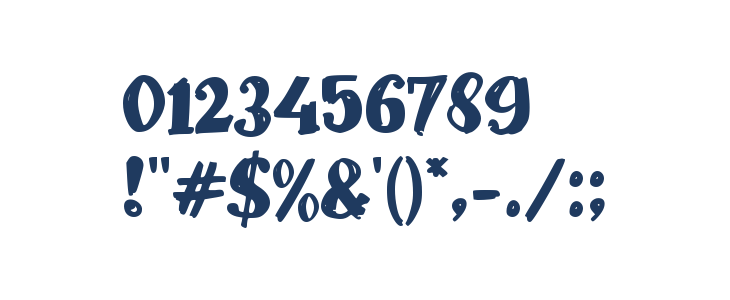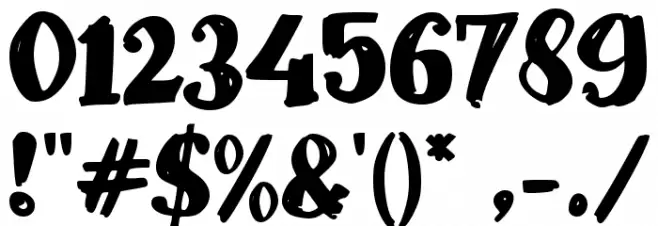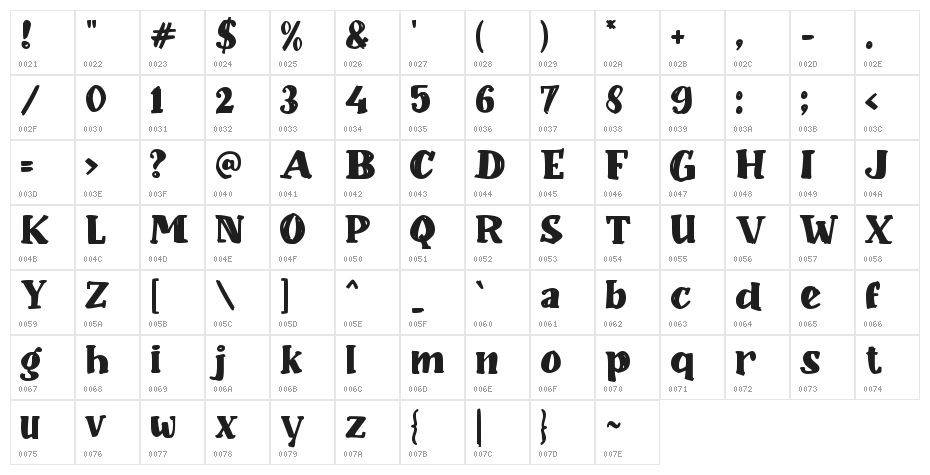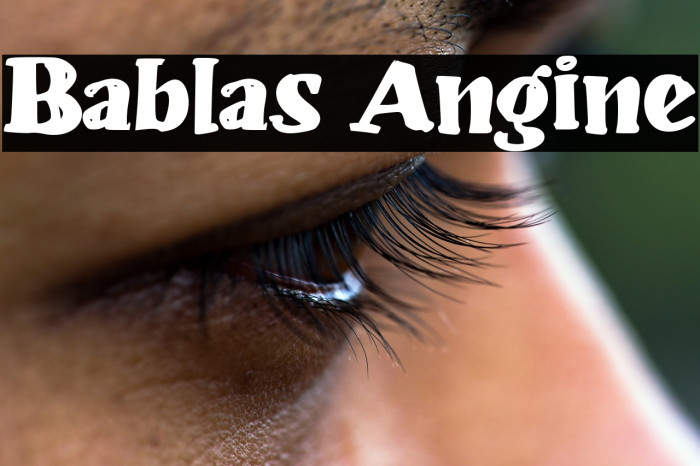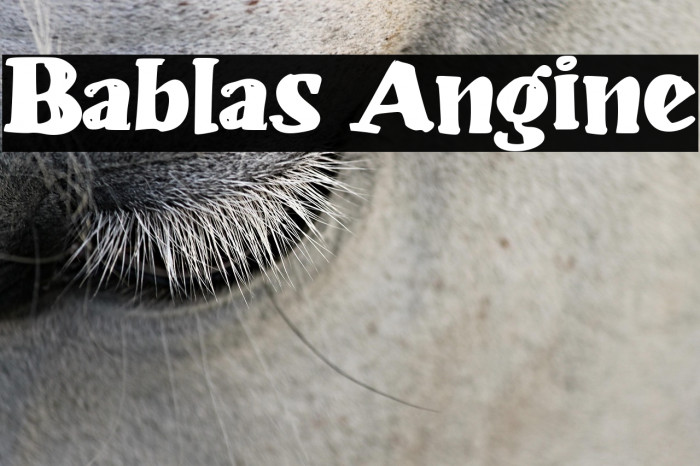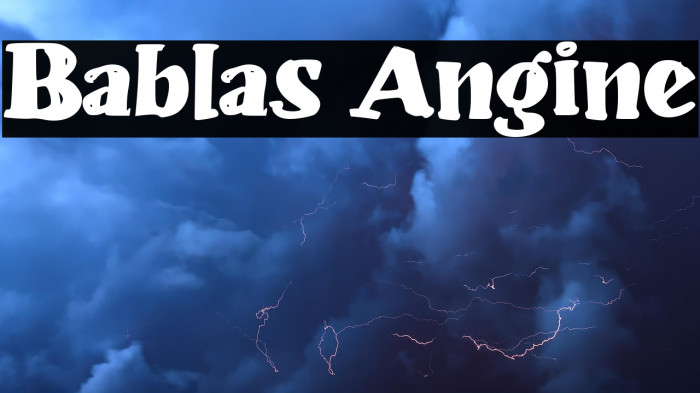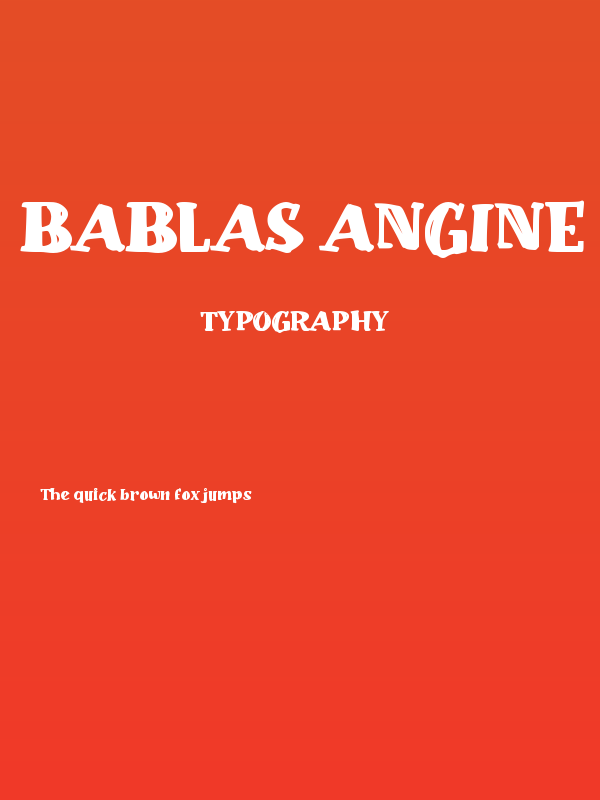
Bablas Angine Font
Bablas Angine Description
This font features a bold and playful style, characterized by its thick, uneven strokes and whimsical curves. The letters have a hand-drawn appearance, giving them a lively and dynamic feel. The uppercase letters are robust and commanding, while the lowercase letters maintain a consistent, flowing style. The numbers and special characters follow the same playful aesthetic, making them stand out with their unique shapes. This font's overall look is both fun and eye-catching, perfect for projects that require a touch of creativity and boldness.
| Overall Style | Playful, Creative |
| Proposed Projects | Ideal for children's books, playful branding, posters, and creative advertising. |